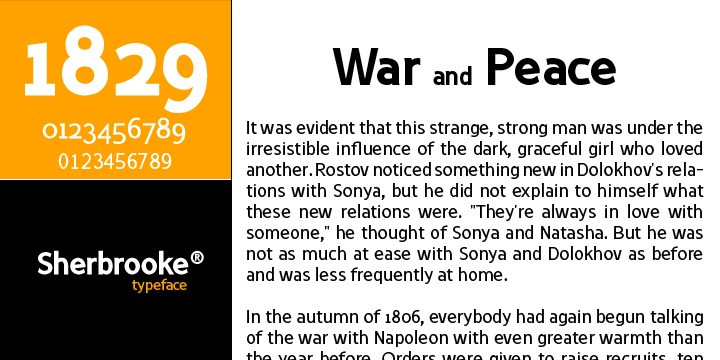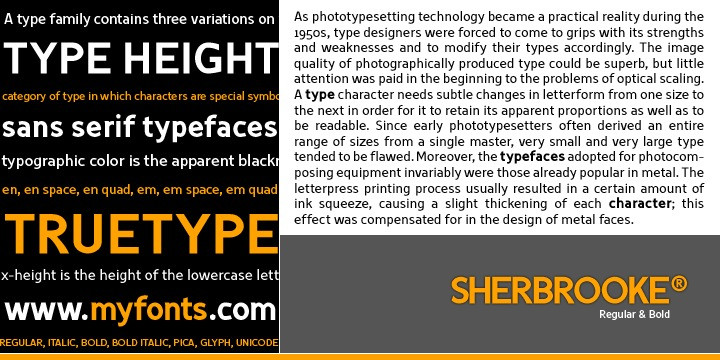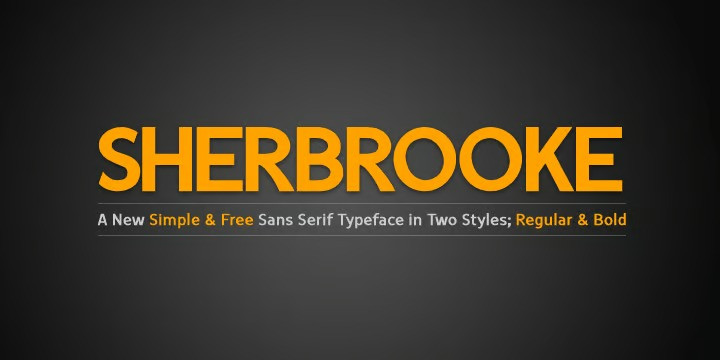
SHERBROOKE Font
Sherbrooke Sans Serif Font is a simple and sans serif font. I have chosen the name of this typeface after the “Sherbrooke” Street in Montreal, Canada, that I daily walked in for several months in the late 2005 while I was studying in Montreal, Quebec, Canada. I do adore this street and also I adore the whole city of Montreal. This font comes in two different weights. “Sherbrooke” can be used in wide fields of publications such as the titles of novels, literary texts, short stories, dictionaries, books, newspapers, websites, and magazines. It is suitable for T-shirts, mugs, advertisement light boards in malls, subtitles of movies, logos, cans of foods, and medicines’ names. The font is more attractive when it is printed in calendars and for displaying the contents and paragraphs of electronic encyclopedias and different online websites. “Sherbrooke” is specifically designed for educational, journalistic, literary, and social purposes. The main characteristics of “Sherbrooke” Typeface are in its sans serif new designed letters and also in its lowercase special numerals. I think that these characteristics have made “Sherbrooke” exceptionally unique with its alphanumeric combinations. You can enjoy this typeface and use it anywhere at any product or service. It is simply gratuitous for all. The word “Sherbrooke” is a person’s name. Sherbrooke Street – officially Rue Sherbrooke – is a major east-west artery at 31.3 kilometers in length and it is the second longest street on the Island of Montreal in Canada. The street is named for John Coape Sherbrooke, the Governor General of British North America from 1816 to 1818.